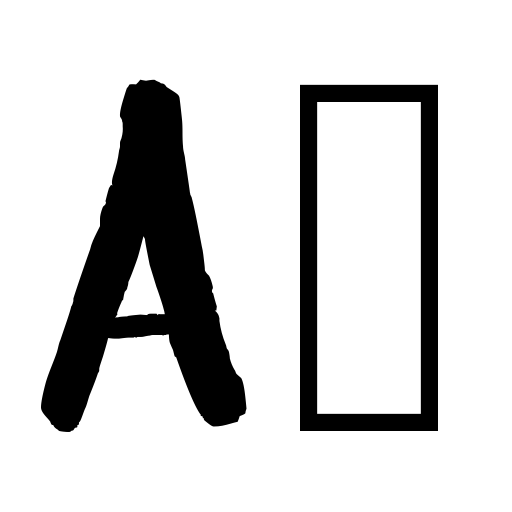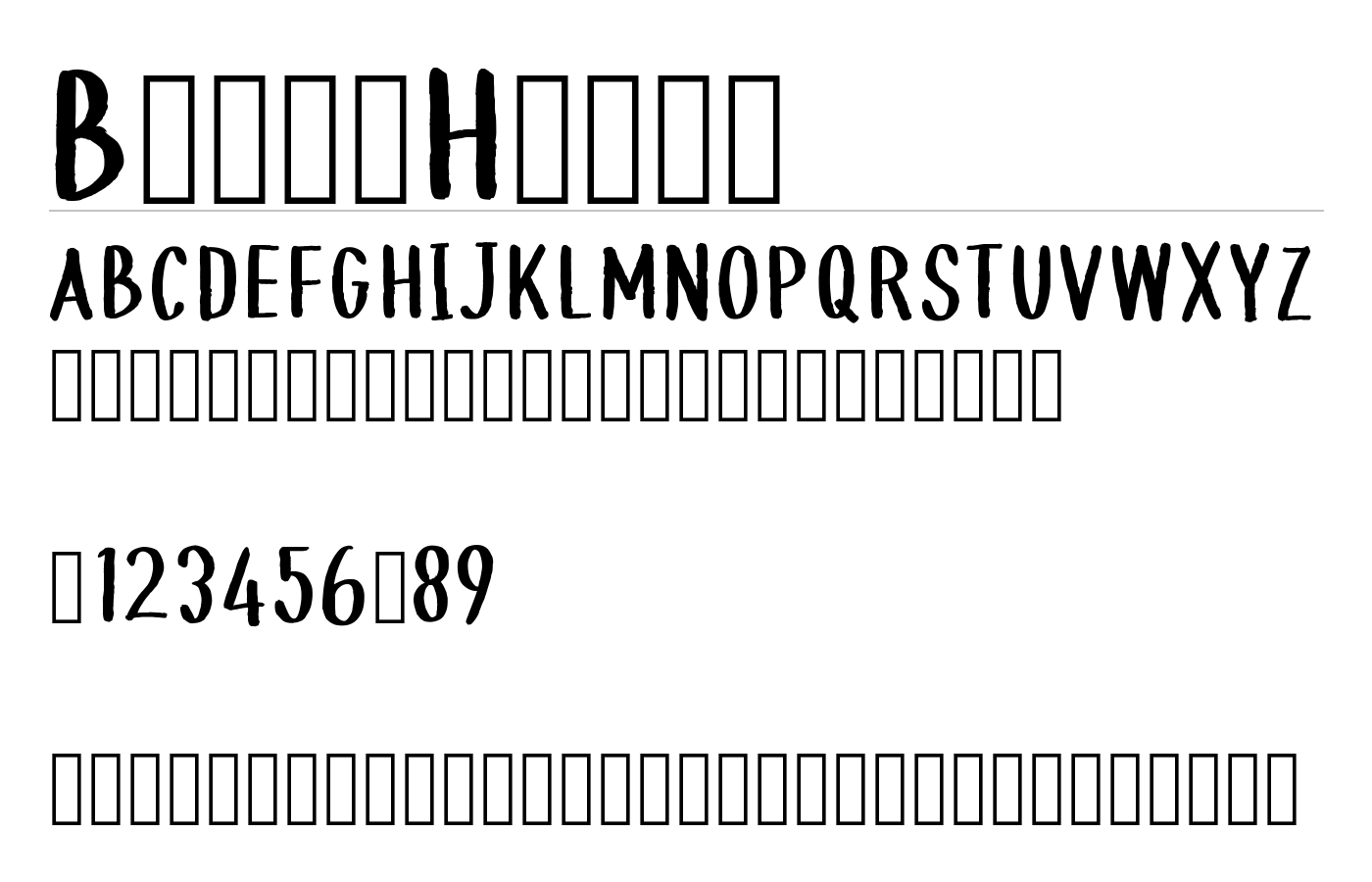
BeachHouse Font is a casual, hand-drawn sans serif that gives off a friendly and relaxed vibe. Its uneven strokes and playful character shapes make it perfect for creative projects, lifestyle branding, or any design that aims to feel warm and approachable. This font works well in headlines, logos, and packaging where a personal, informal touch is needed.
BeachHouse Font
About BeachHouse Font